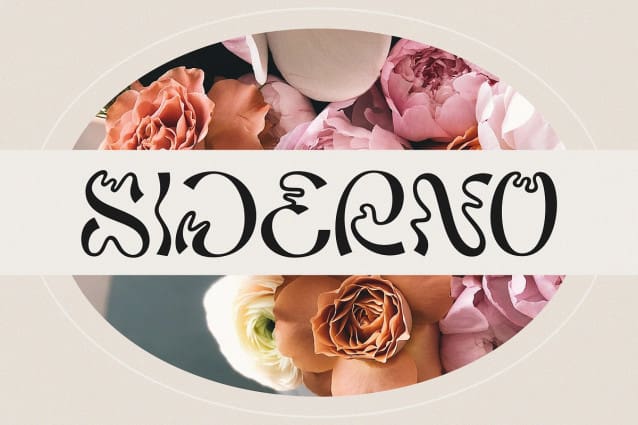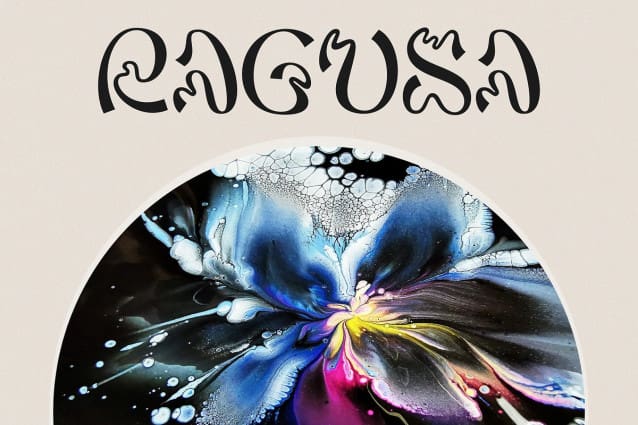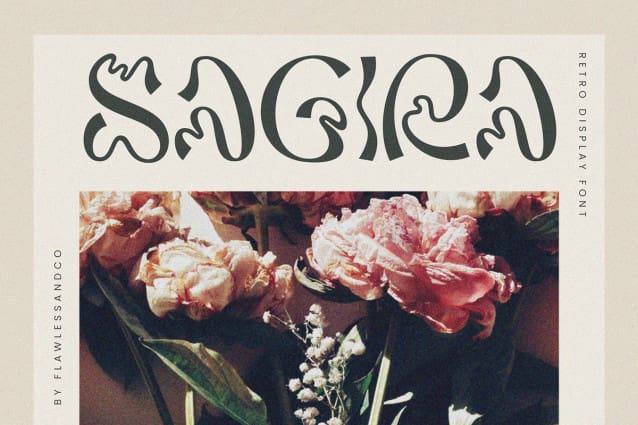
Sagira Display Font
Sagira Display Font a nostalgic retro display font that pays homage to the past, complete with charming wavy line details that evoke a sense of vintage flair. With its unique character and retro charm, “Sagira” is designed to infuse your projects with a touch of yesteryear’s style.